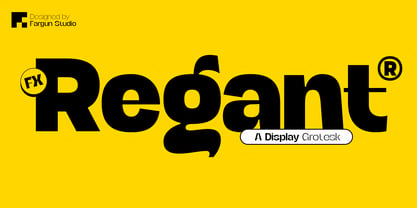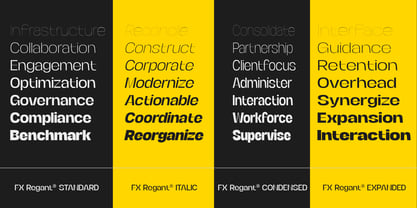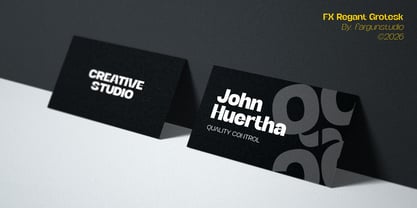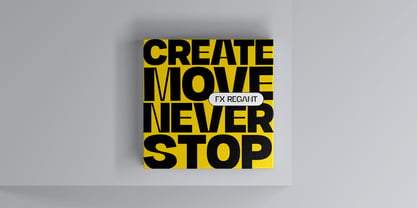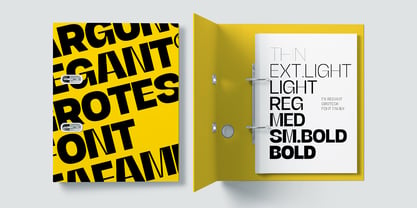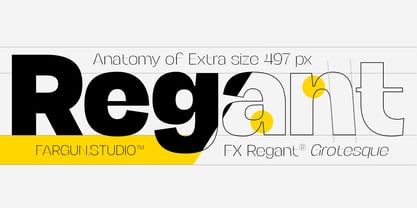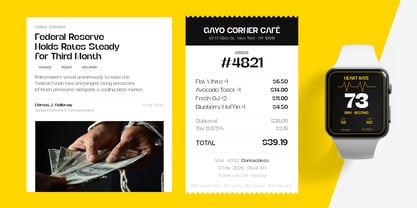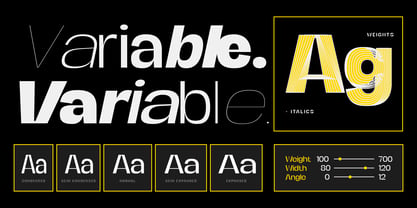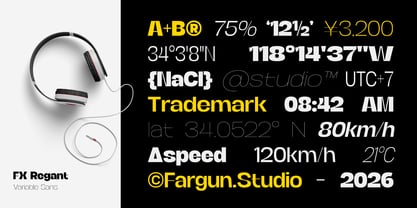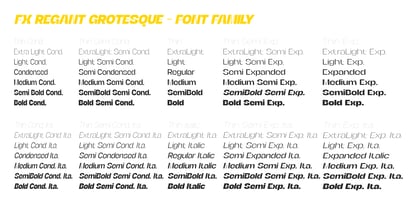
FX Regant
von Fargun Studio
Die Schriftfamilie FX Regant wurde von Fajar Gunawan entworfen und von Fargun Studio veröffentlicht. FX Regant enthält 70 Stile und Familienpaketoptionen. Mehr über diese Familie
FX Regant is a Display grotesk typeface crafted for modern branding and impactful typography. With its strong geometric forms, confident presence, and refined details, FX Regant is perfect for logos, headlines, posters, editorial design, and contemporary visual identities. Designed to adapt seamlessly from clean minimal layouts to expressive creative projects, Regant delivers both versatility and character in every weight.
Designer: Fajar Gunawan
Foundry: Fargun Studio